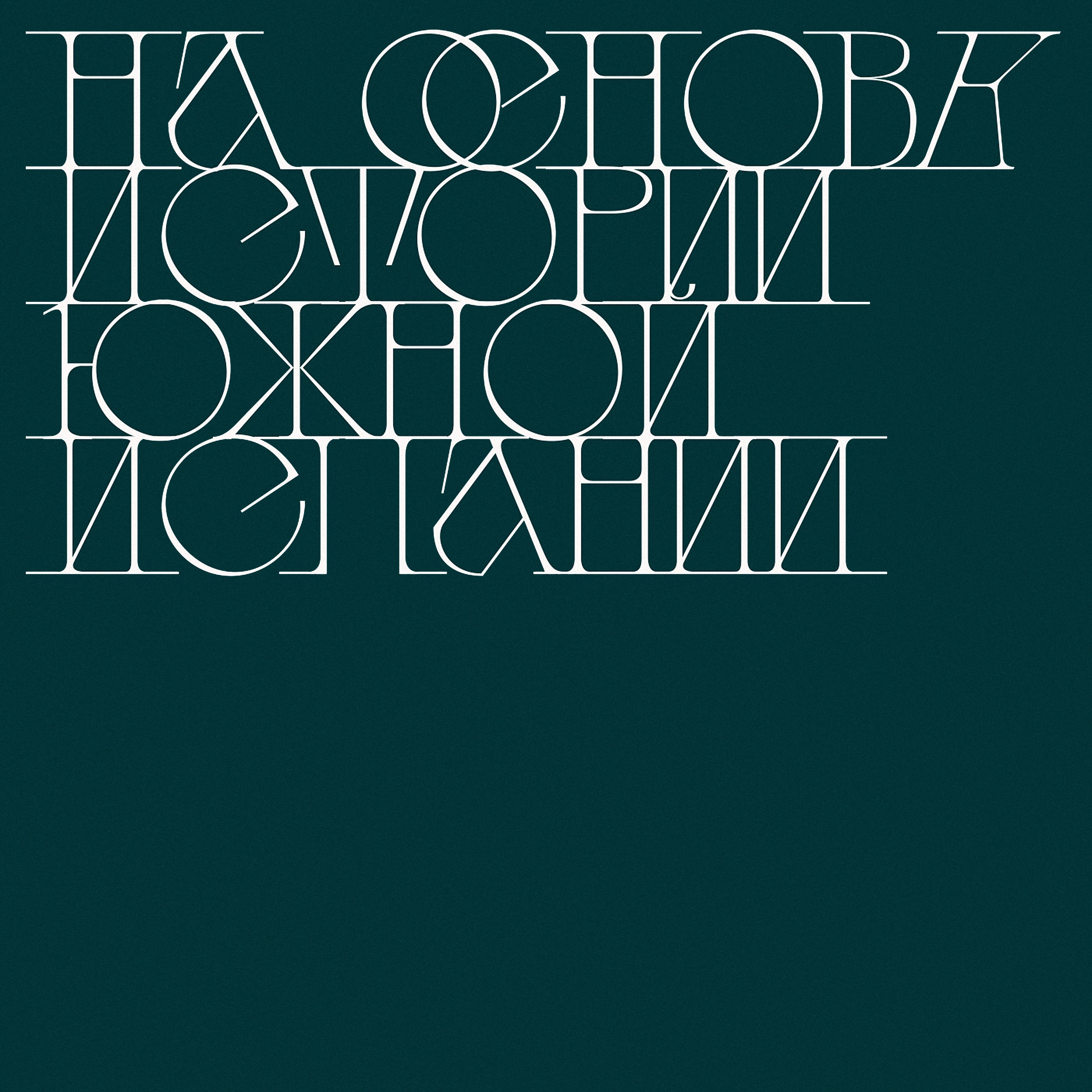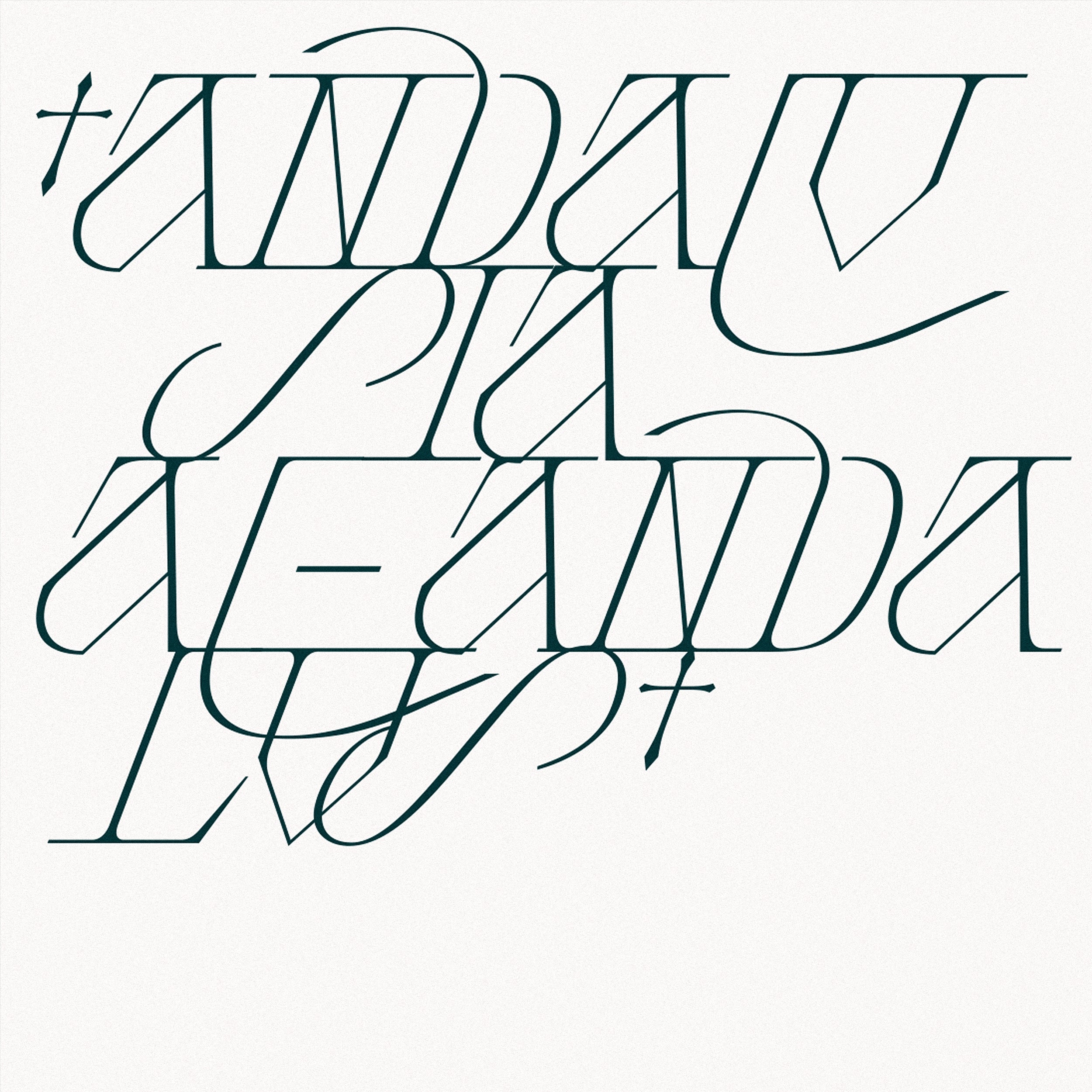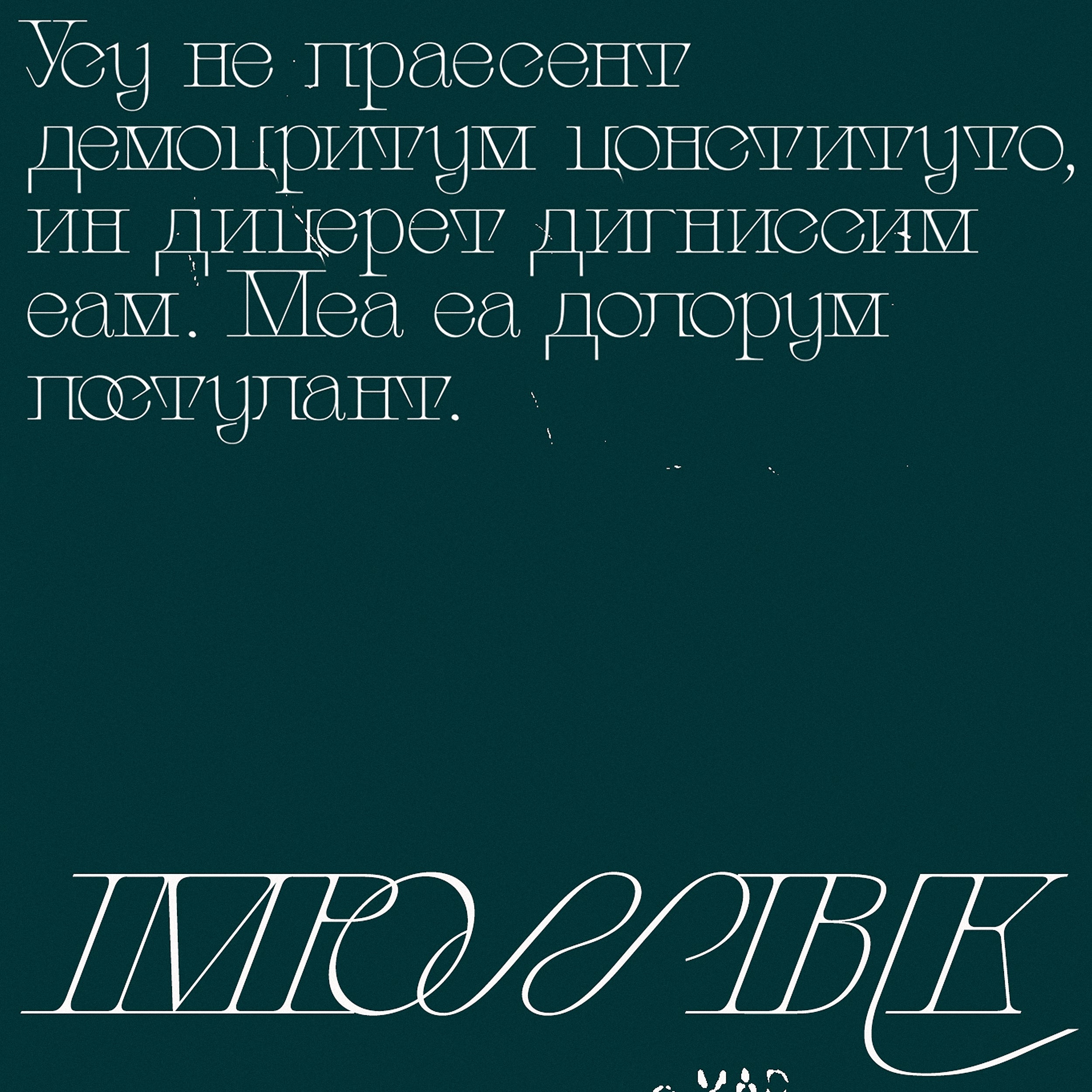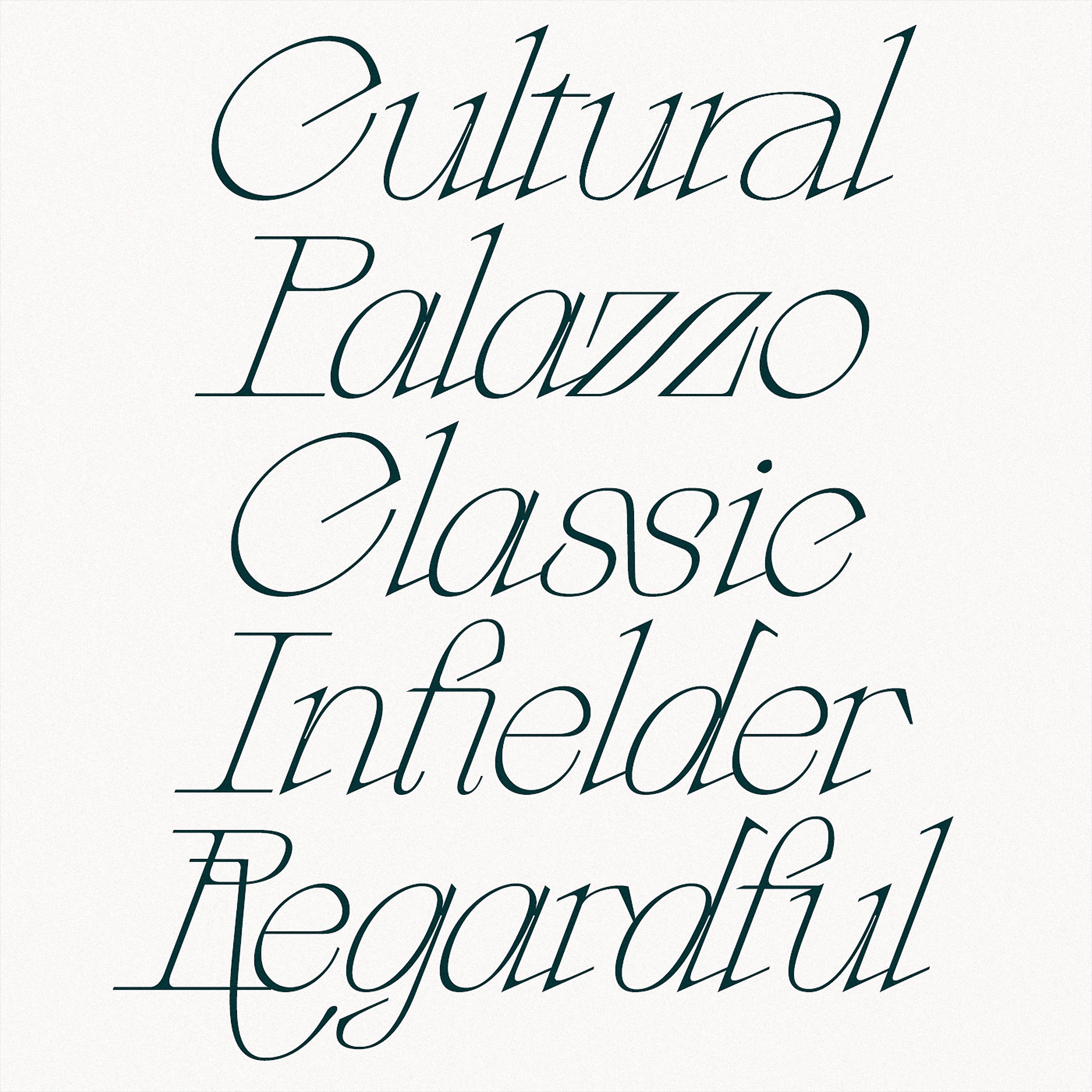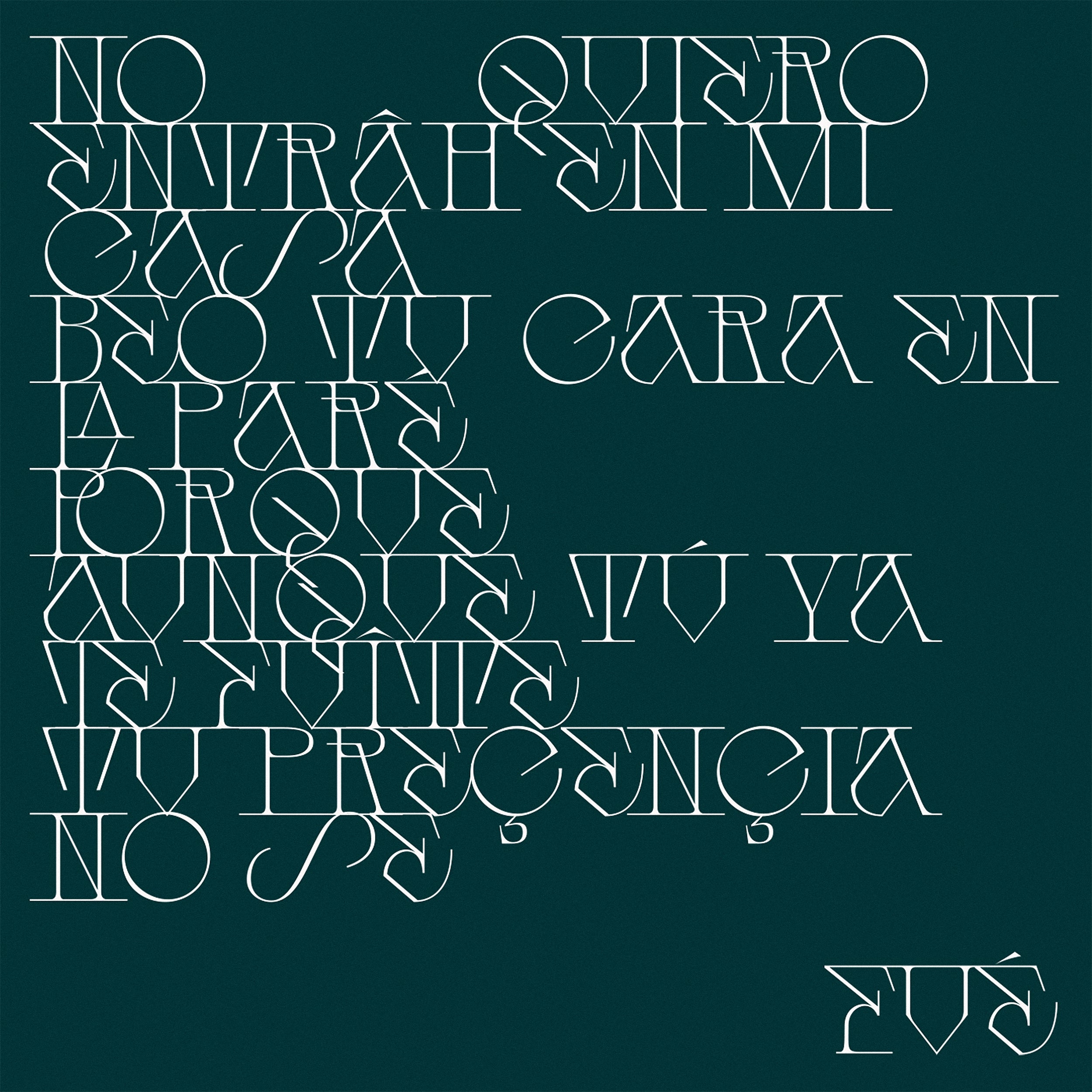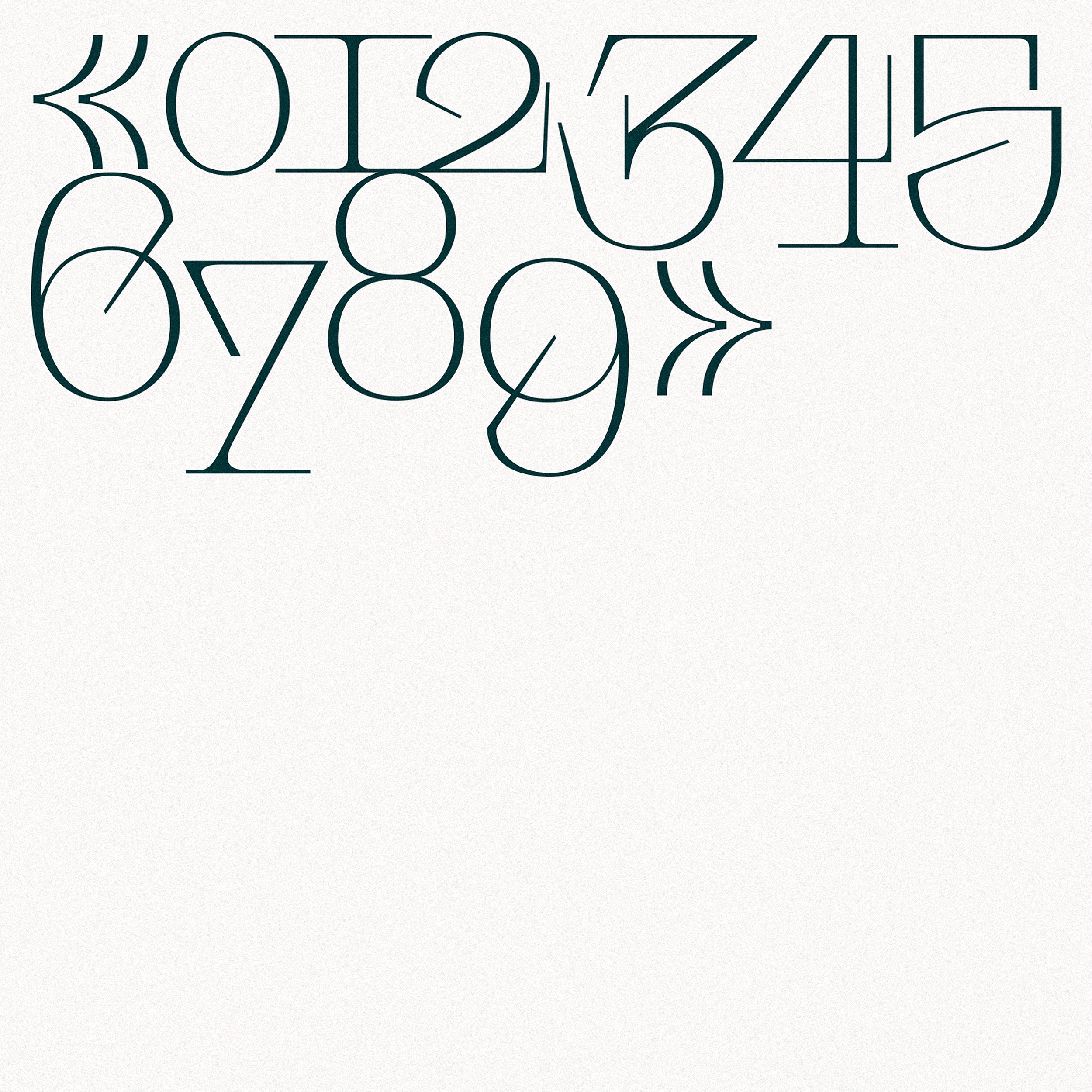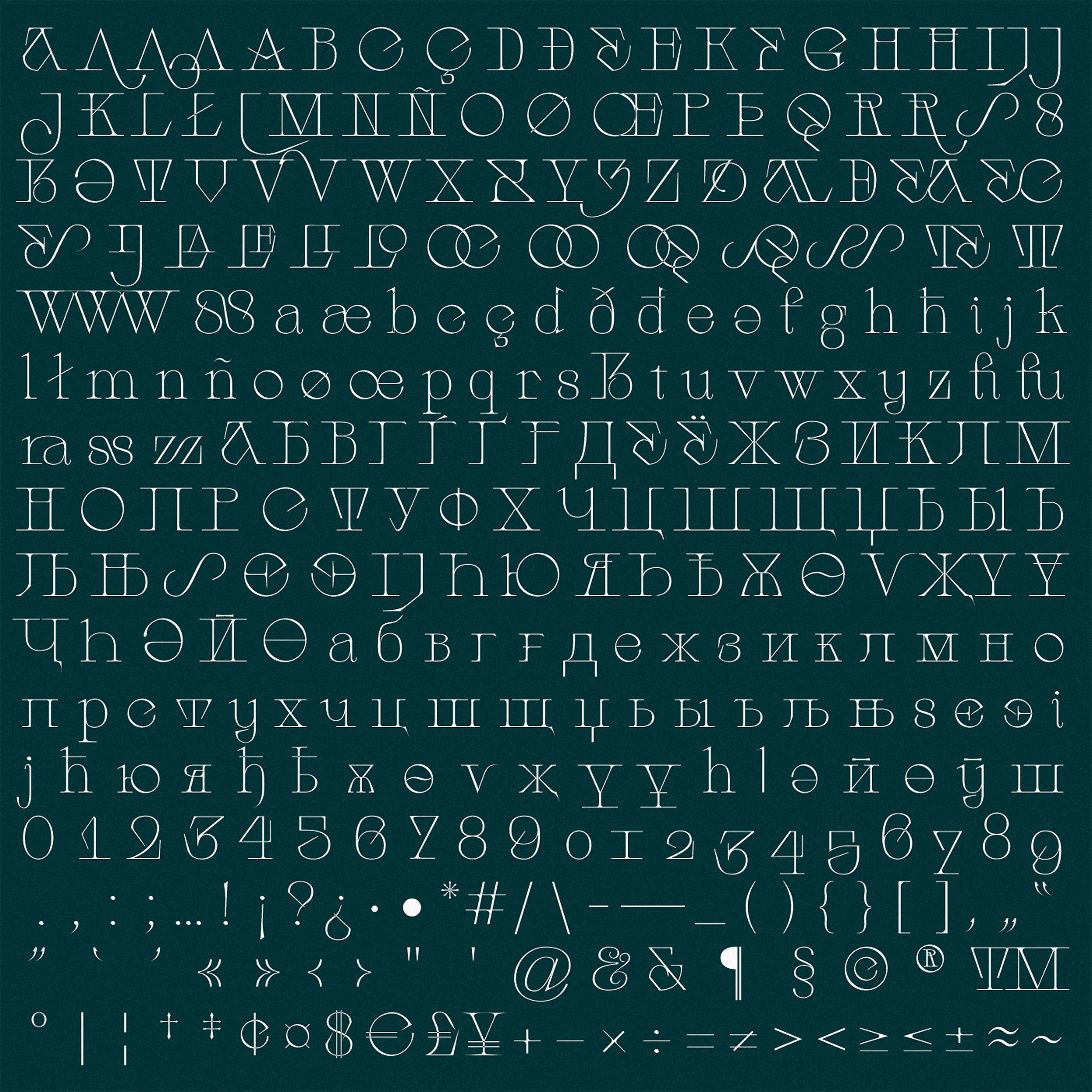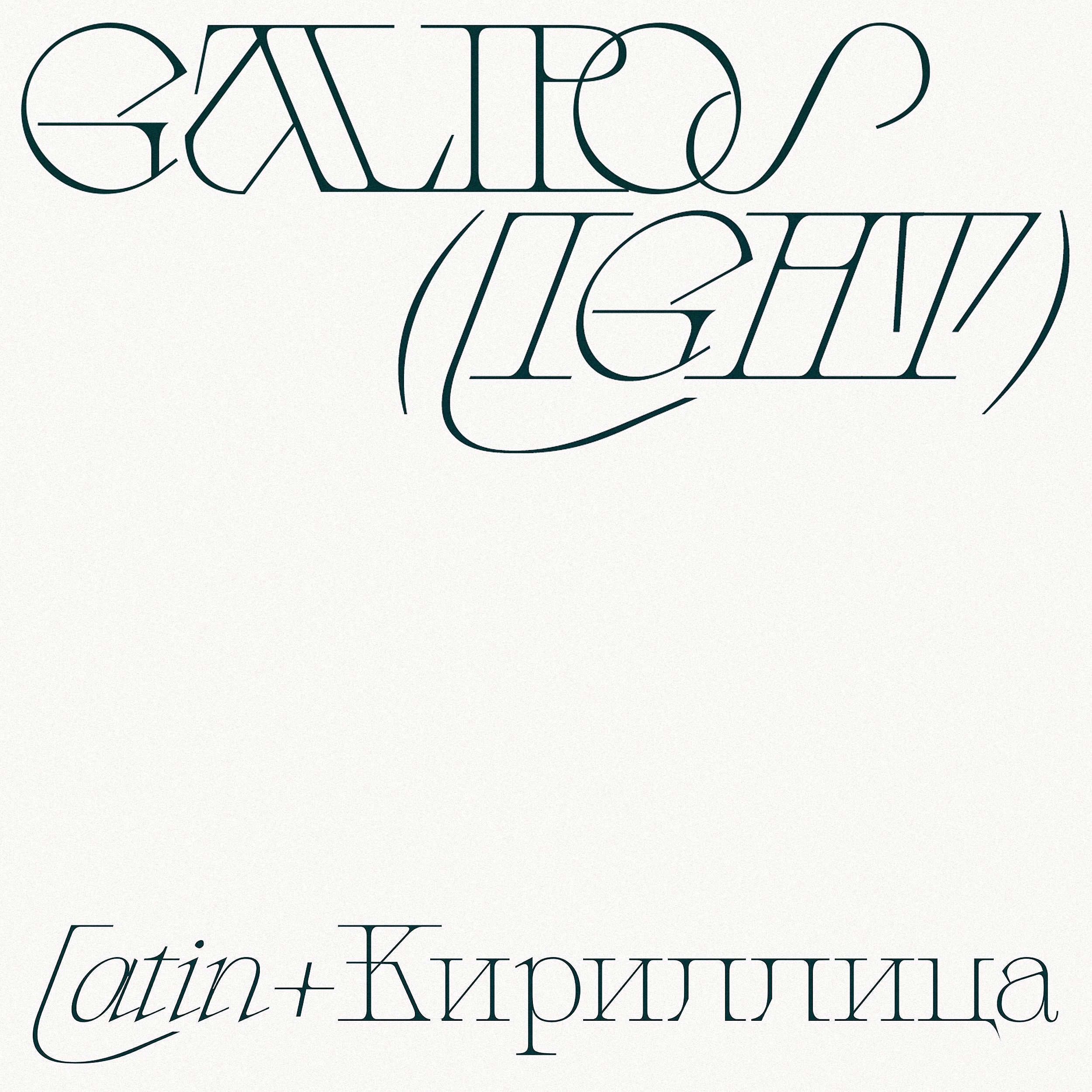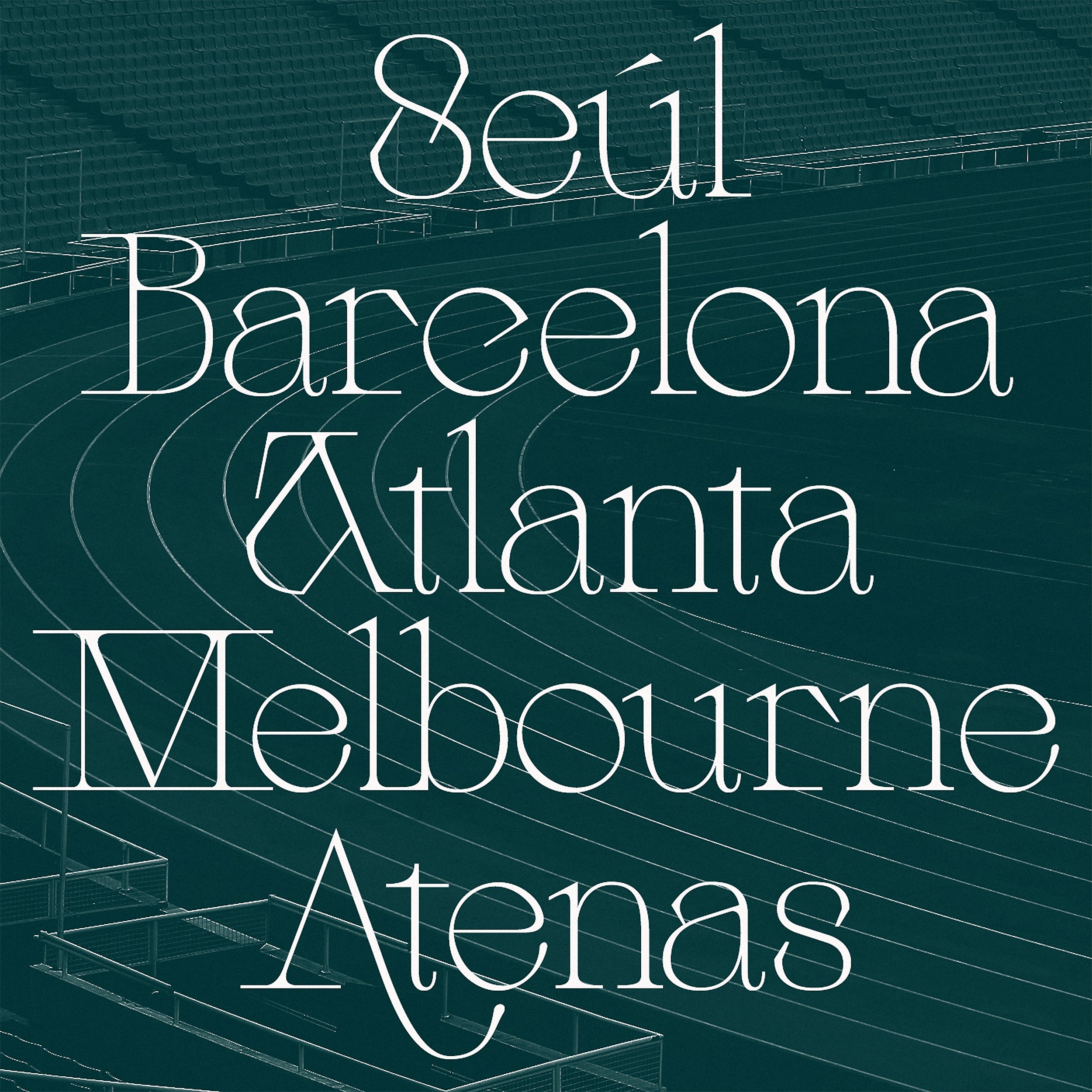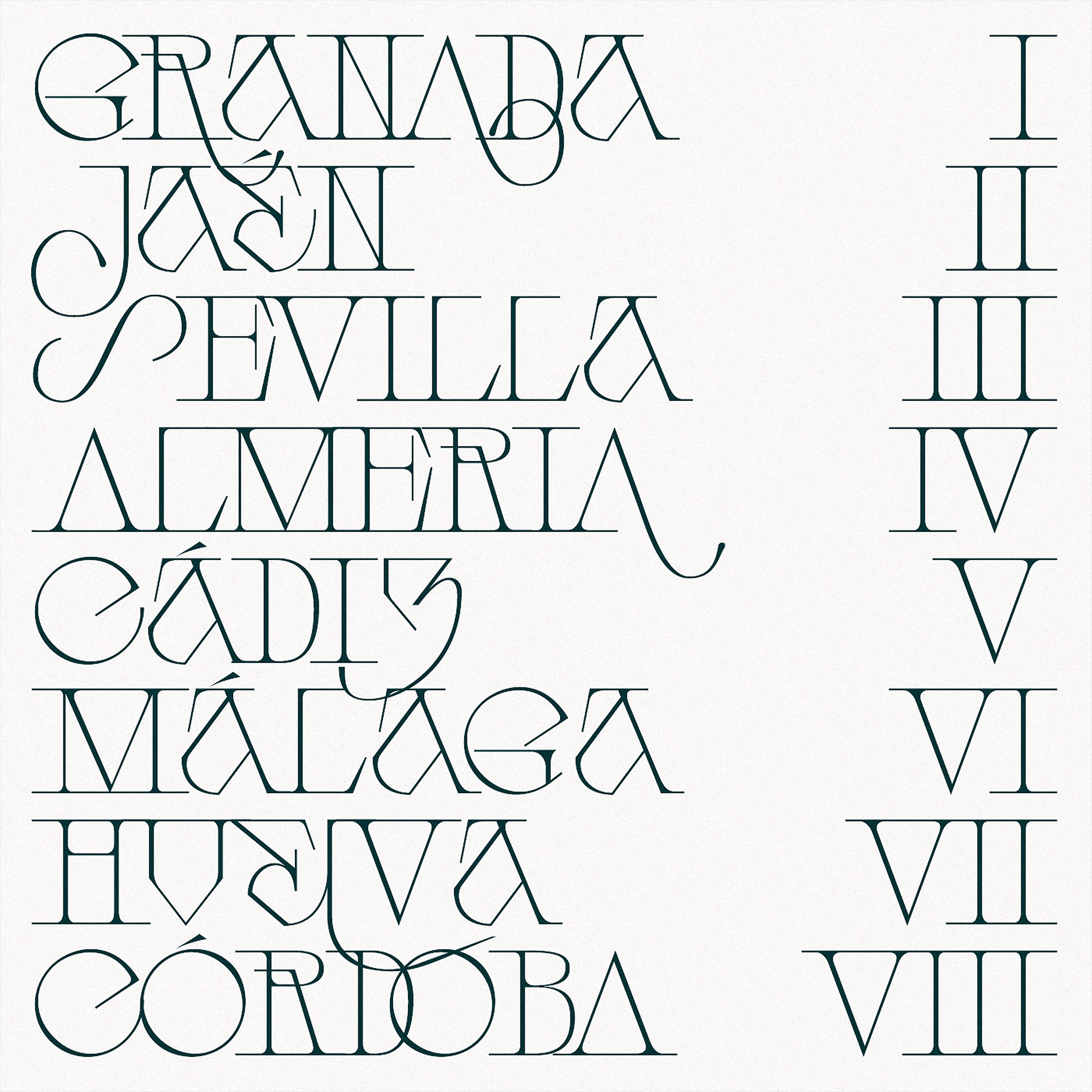
Galipos
Galipo is a distinctive display typeface inspired by Andalusian society and culture, seamlessly blending historical depth with contemporary relevance. The design of Galipo is an experimental exploration, characterized by sharp, intricate details that convey both strength and delicacy simultaneously.
Each glyph in Galipo is meticulously crafted to reflect the resilience and complexity of its cultural inspiration. The sharp edges and delicate curves create a visual contrast that captures the essence of the Andalusian spirit—tough yet refined, bold yet sensitive.
Ideal for creating impactful headlines, posters, and editorial layouts, Galipo stands as a testament to the enduring spirit of a community often misunderstood and underestimated. It celebrates the beauty in resilience, offering a unique typographic voice that speaks to both tradition and modernity.
Galipo is a distinctive display typeface inspired by Andalusian society and culture, seamlessly blending historical depth with contemporary relevance. The design of Galipo is an experimental exploration, characterized by sharp, intricate details that convey both strength and delicacy simultaneously.
Each glyph in Galipo is meticulously crafted to reflect the resilience and complexity of its cultural inspiration. The sharp edges and delicate curves create a visual contrast that captures the essence of the Andalusian spirit—tough yet refined, bold yet sensitive.
Ideal for creating impactful headlines, posters, and editorial layouts, Galipo stands as a testament to the enduring spirit of a community often misunderstood and underestimated. It celebrates the beauty in resilience, offering a unique typographic voice that speaks to both tradition and modernity.